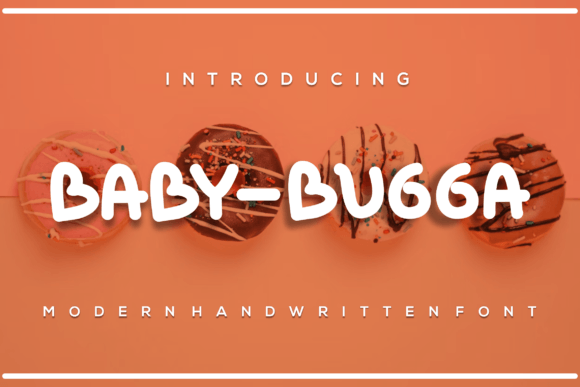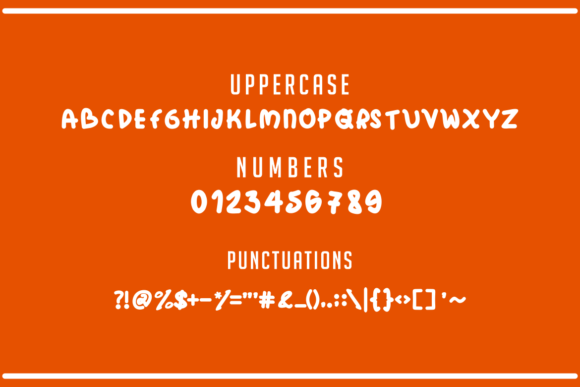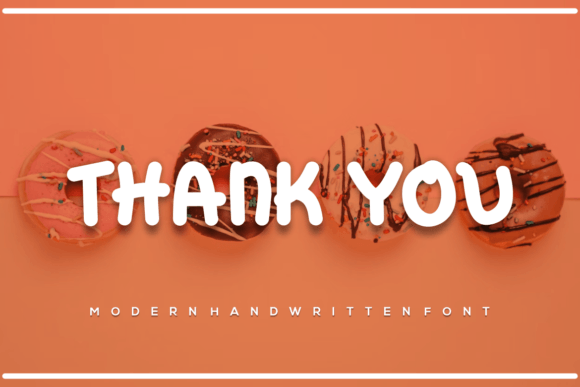
Baby Bugga Font
About Baby Bugga Font
Baby Bugga is a fun and whimsical handwritten font. Playful and a bit quirky, this font will brighten up each of your designs. Add it confidently to your projects, and you will love the results.